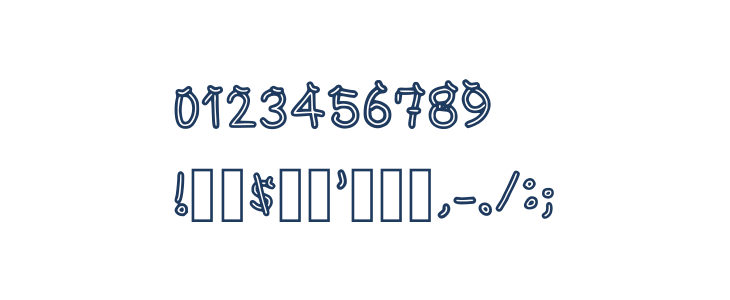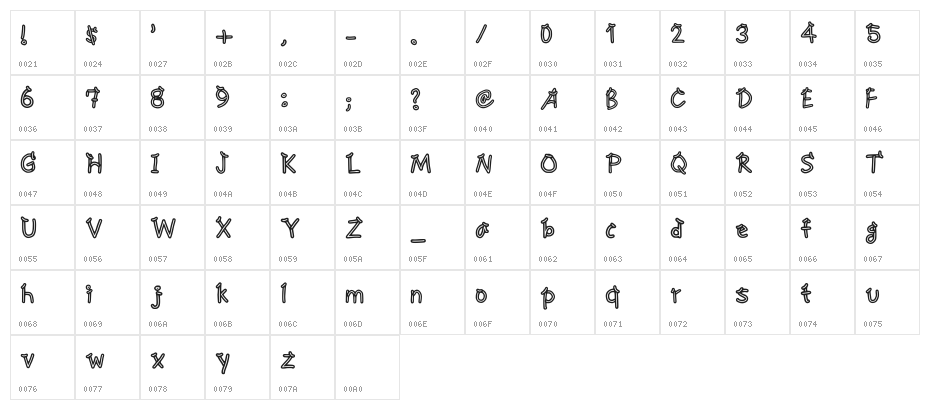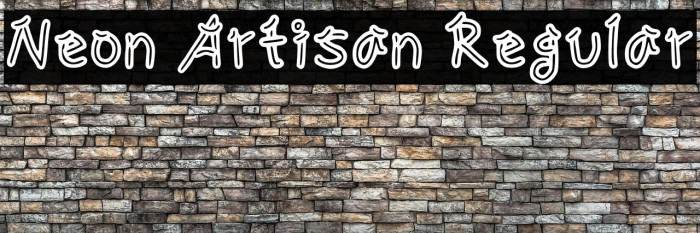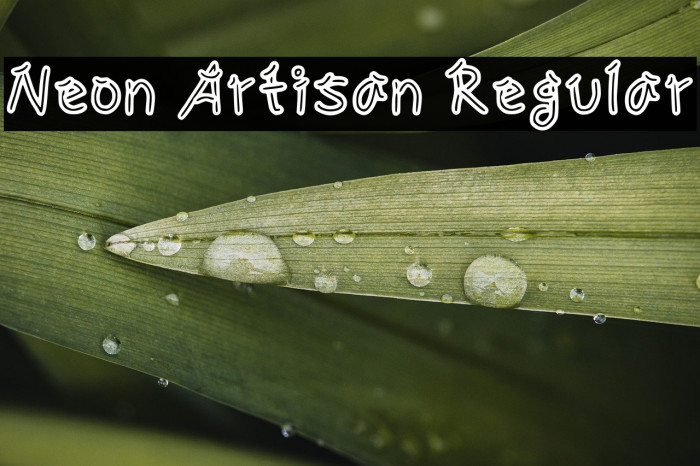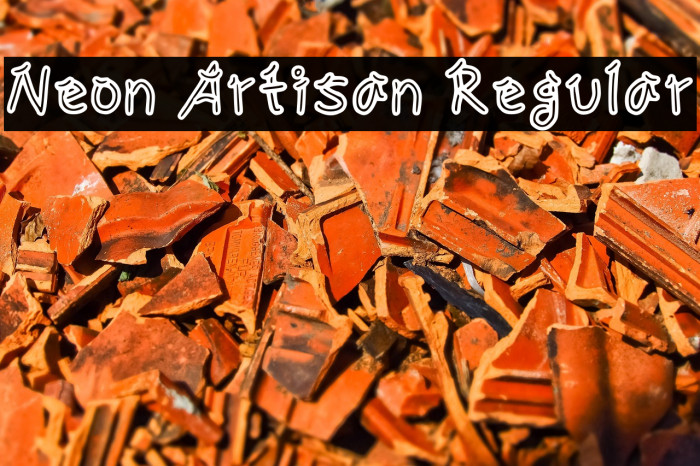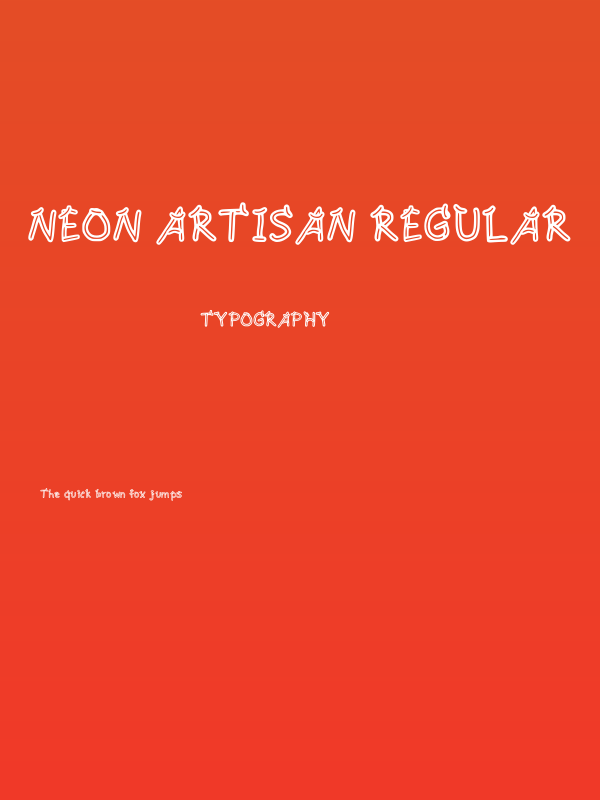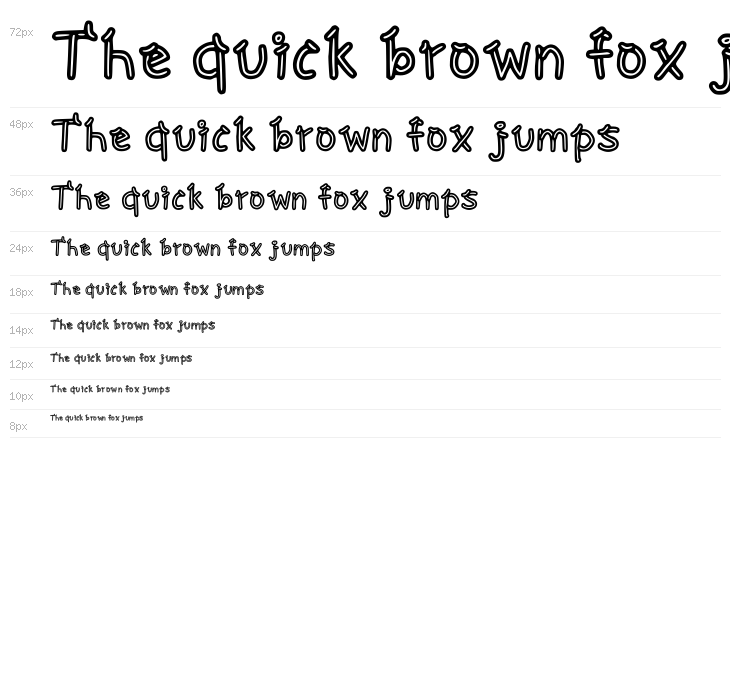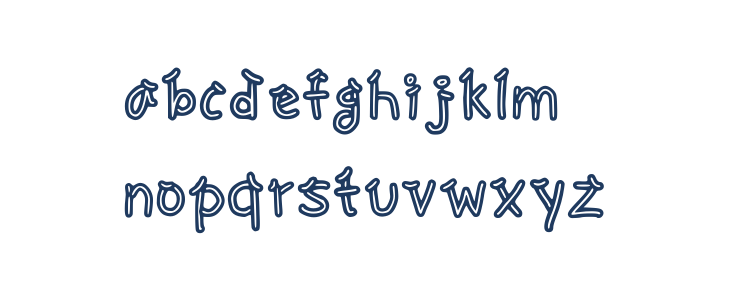
Neon Artisan Regular Font
Neon Artisan Regular Description
This font features a playful and artistic design, reminiscent of neon signage with its bold, outlined characters. Each letter is crafted with a hand-drawn aesthetic, giving it a unique and informal appearance. The strokes are consistent in width, creating a cohesive look across both uppercase and lowercase letters. The numbers and special characters maintain this style, ensuring uniformity throughout. Its whimsical nature makes it suitable for creative projects that require a touch of fun and individuality.
| Proposed Projects | Ideal for creative projects such as posters, event invitations, children's book covers, and branding for artistic ventures. |